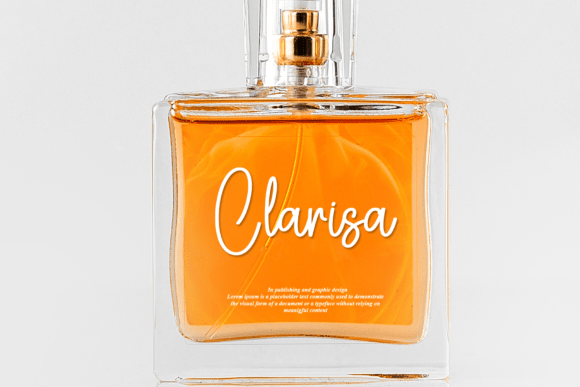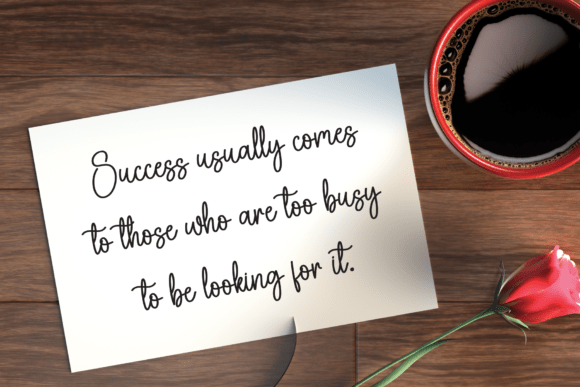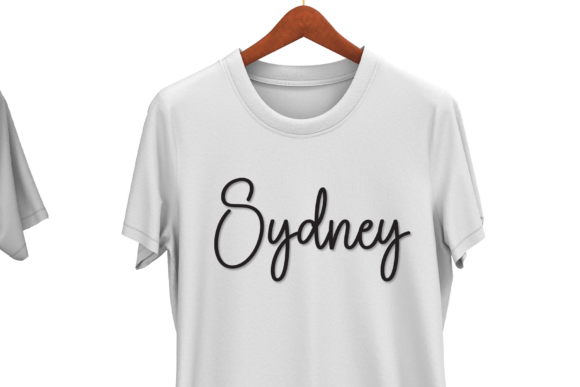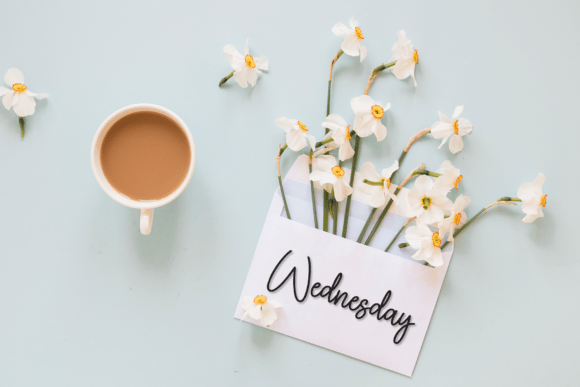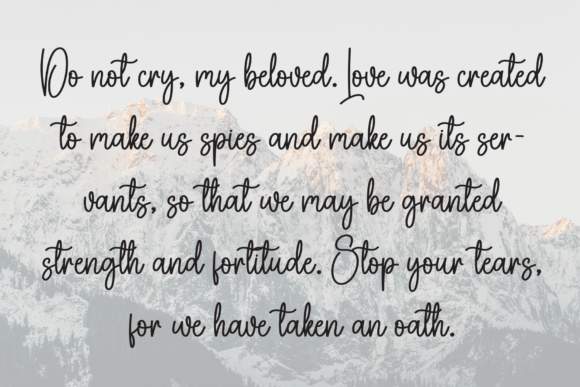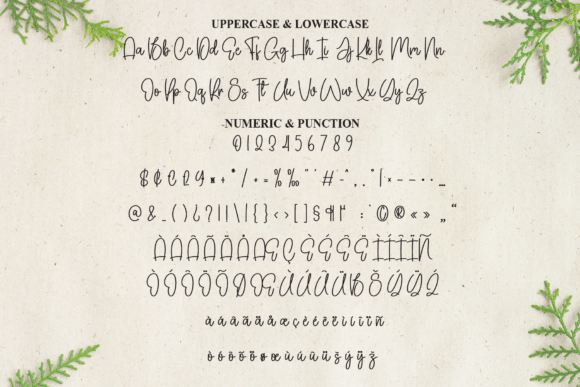
Introduction to Netural Christmas Font
There’s something magical about the first moment you start brainstorming holiday designs each year. The twinkling lights, the cozy atmosphere, and the endless possibilities for creative expression all come together to spark your imagination. As a designer, you’re likely no stranger to this feeling – and you know that the right font can make all the difference in bringing your vision to life. That’s where the Netural Christmas Font comes in, a beautiful, hand-crafted typeface that captures the effortless charm of the holiday season.
Whether you’re working on a personal project or a commercial design, the Netural Christmas Font is a valuable resource that will elevate your work and help you stand out from the crowd. With its high-quality design and transparent background, this font is perfect for creating seasonal social media graphics, lifestyle branding, and home decor projects that exude organic elegance. And the best part? It’s available for free download, making it an accessible design resource for designers of all levels.
Key Features of Netural Christmas Font
- High-quality design resource with a transparent background, ideal for creative projects and backgrounds.
- Unique, hand-drawn design with a modern twist, perfect for adding a touch of elegance to your holiday-themed projects.
Honest Review: Netural Christmas Font
I recently stumbled upon the Netural Christmas Font, a free design resource that caught my eye for its unique and festive feel. As a designer, I was excited to dive in and see if it lived up to my expectations.
- The Netural Christmas Font boasts a high-quality design with a transparent background, making it easy to overlay on different backgrounds and images.
- The font’s creative and playful style is perfect for festive projects, such as holiday greeting cards, gift tags, and social media graphics.
- The font’s limited character set may not be suitable for longer text-based projects, such as holiday-themed blog posts or essays.
- The font’s style may not be to everyone’s taste, and some designers may find it too playful or kitschy for their design preferences.
Overall, I’m impressed with the Netural Christmas Font’s unique design and high-quality construction. While it may have some limitations, it’s a great addition to any designer’s toolkit for festive projects.
The Netural Christmas Font is a high-quality design resource perfect for creative projects. It’s a free download that offers a unique and elegant touch to your designs. One of its standout features is its transparent background, making it easy to integrate into various design elements.
The Netural Christmas Font is ideal for various creative projects, including holiday cards, invitations, social media graphics, and presentations. It’s also a great choice for bloggers and influencers who want to add a touch of elegance to their content.